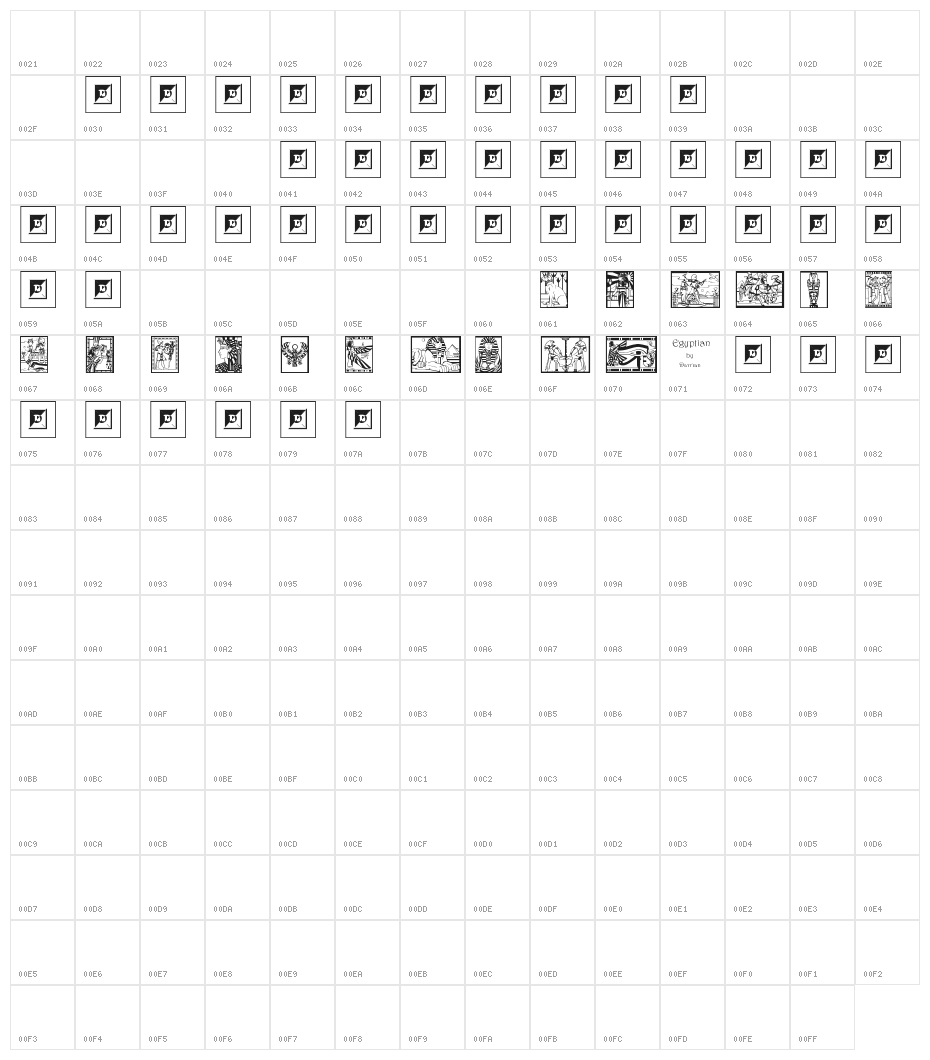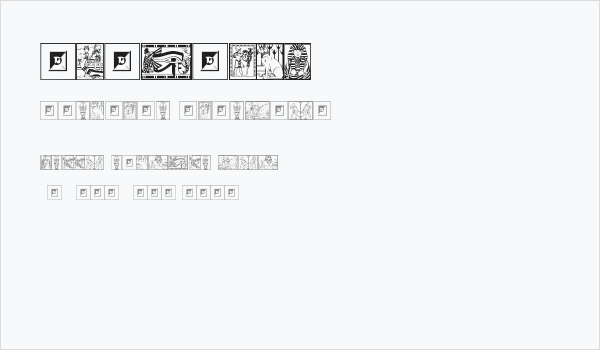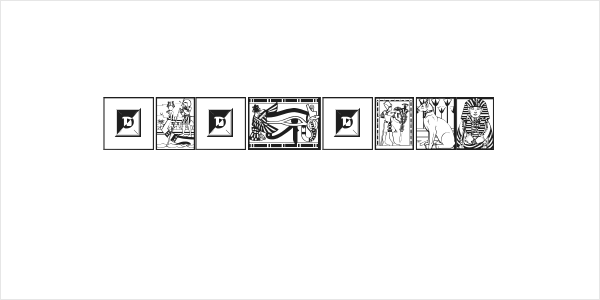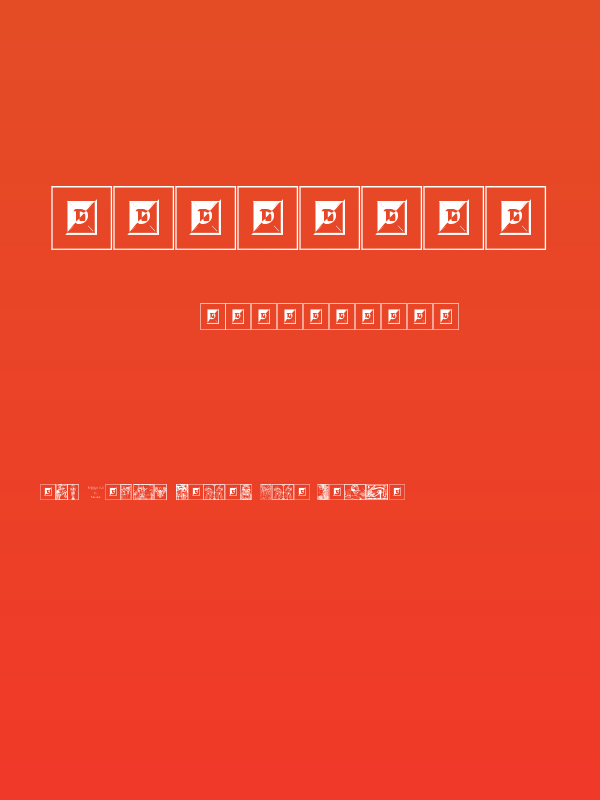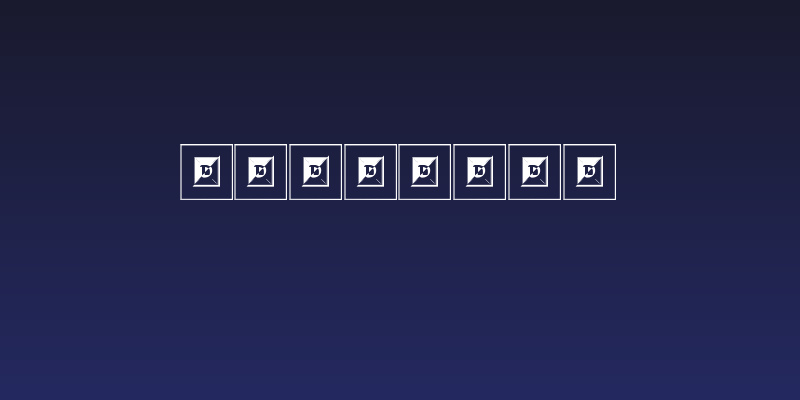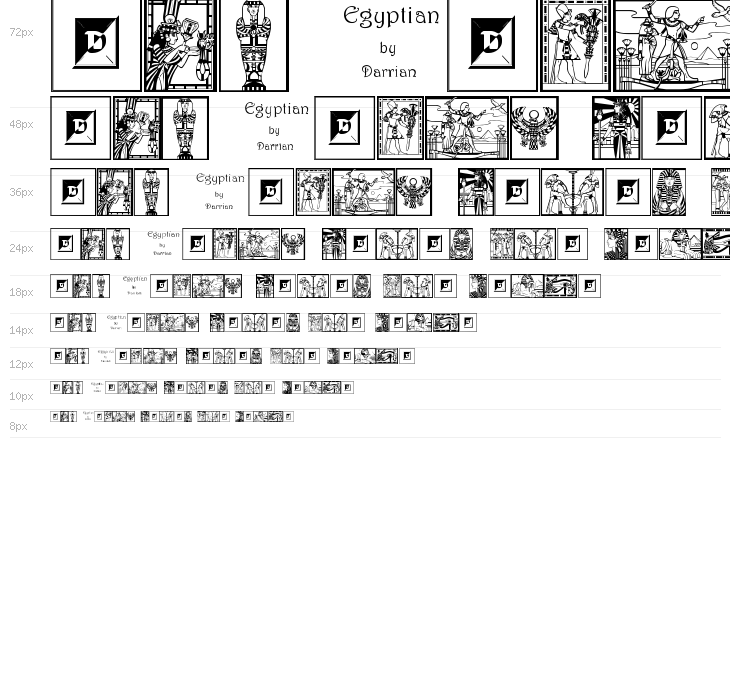
Egyptian Font
Egyptian Description
This is not a traditional font but rather a collection of decorative images and symbols inspired by ancient Egyptian art and iconography. Each character is represented by a unique illustration depicting scenes, figures, and motifs typical of Egyptian culture, such as pharaohs, hieroglyphs, and deities. The style is highly detailed and ornamental, capturing the essence of ancient Egyptian aesthetics with intricate line work and symbolic imagery. This set is more suited for decorative purposes rather than standard text representation.
| Use Case | Decorative purposes, themed designs, artistic projects. |
| Proposed Projects | Ideal for projects requiring an Egyptian theme, such as educational materials, themed event decorations, or artistic designs inspired by ancient cultures. |